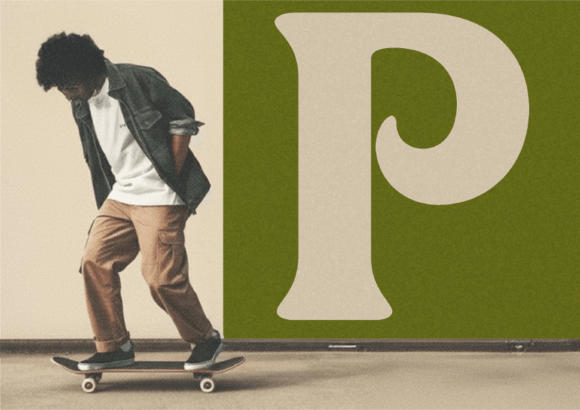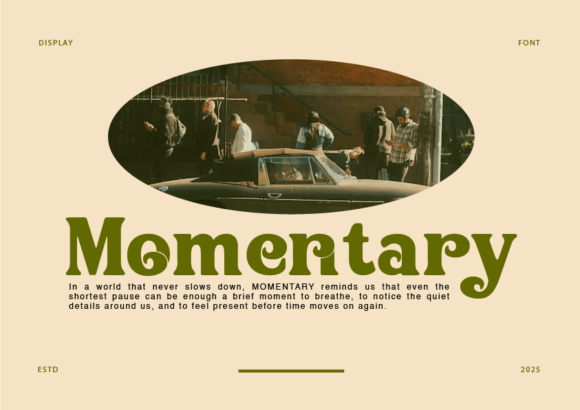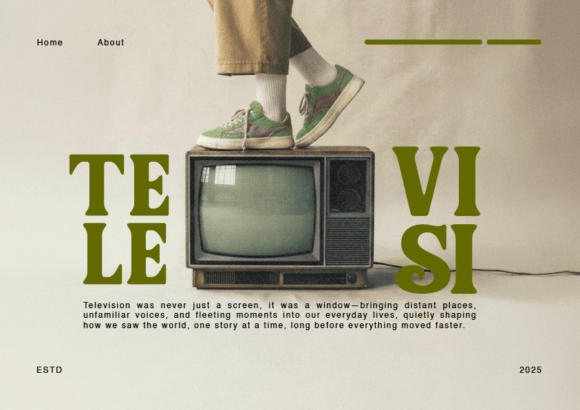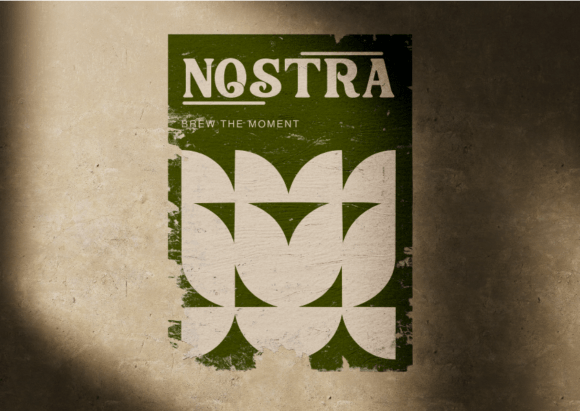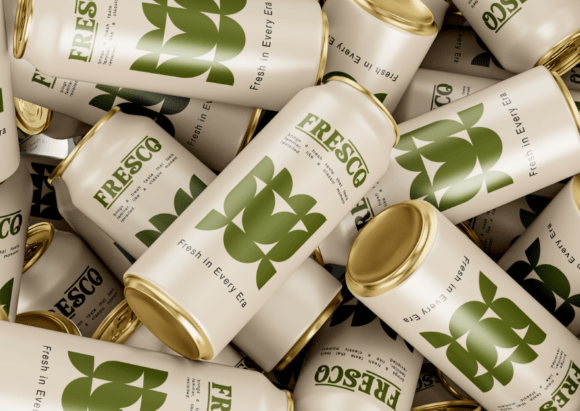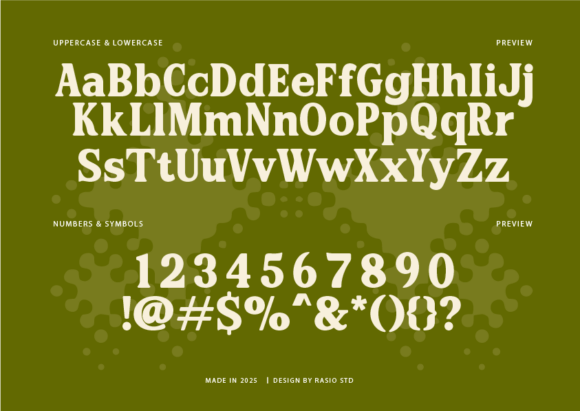
Unleashing the Magic of Paverno Font
Have you ever stumbled upon a vintage poster that instantly transports you to a bygone era of sun-kissed summers and carefree nights? For designers, that ‘aha’ moment is what makes a project truly special. It’s the spark that sets off a chain reaction of creativity, inspiring us to push the boundaries of our craft. And that’s exactly what Paverno Font promises to deliver – a high-quality design resource that’s equal parts sophisticated and playful.
With its unique blend of thick, confident strokes and artistic curves, Paverno Font is the perfect addition to any creative project. Whether you’re working on a retro branding campaign or a cinematic header, this versatile font is sure to bring a touch of vintage warmth and relaxed luxury to your design. And the best part? It’s available for free download, making it an accessible resource for designers of all levels.
Paverno Font
- Features a unique, modern design that sets it apart from other fonts
Honest Review: Paverno Font
I recently stumbled upon the Paverno Font while searching for a high-quality design resource for a creative project. After giving it a try, I’m excited to share my honest review.
Here are the things that worked well for me: ✨ The Paverno Font is incredibly versatile and can be used for a wide range of designs, from modern logos to elegant typography. The font is available for free download, which is a major plus for designers on a budget. I also appreciated the transparent background, which made it easy to integrate into my design without any issues.
- Great for modern and elegant designs
However, I did encounter a few limitations: ⚠️ The font could benefit from a few more weights and styles to make it more comprehensive. Additionally, the font may not be suitable for very large-scale designs, as it can become pixelated.
Overall, I’m impressed with the Paverno Font and would definitely recommend it to designers looking for a high-quality, free design resource. With a few tweaks to address the limitations, I believe this font has the potential to become a go-to choice for many designers.
Paverno Font
Paverno Font is a versatile design resource suitable for a variety of creative projects, including logos, brochures, business cards, and social media graphics.
Tips for Getting the Most Out of Paverno Font
To get the most out of Paverno Font, use it in conjunction with a transparent background to create a modern and sleek design. Experiment with different font sizes and colors to find the perfect balance for your creative project.
Dancing Script Font is a high-quality, cursive script font that can add a touch of sophistication to your design. It’s perfect for use in creative projects such as wedding invitations, birthday cards, and other special occasion materials.
Compared to Paverno Font, Dancing Script Font has a more elegant and refined appearance. While Paverno Font is bold and playful, Dancing Script Font is better suited for formal and elegant designs.